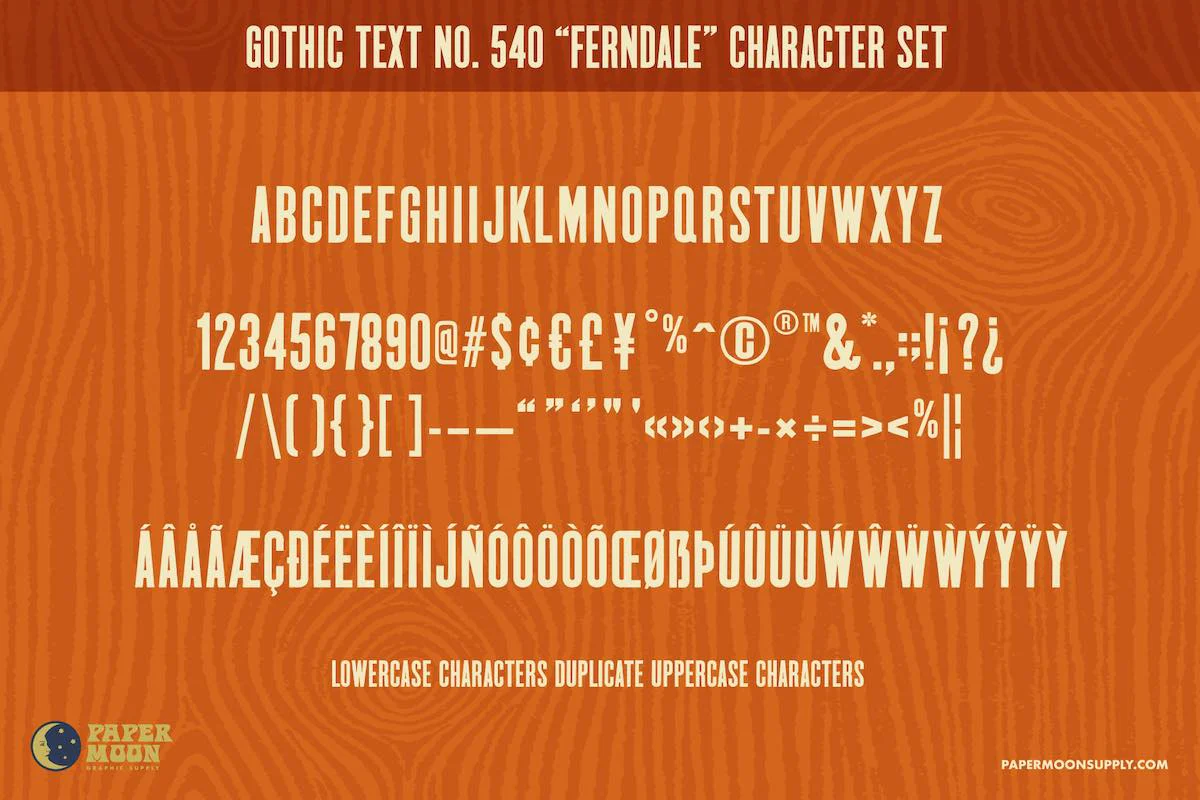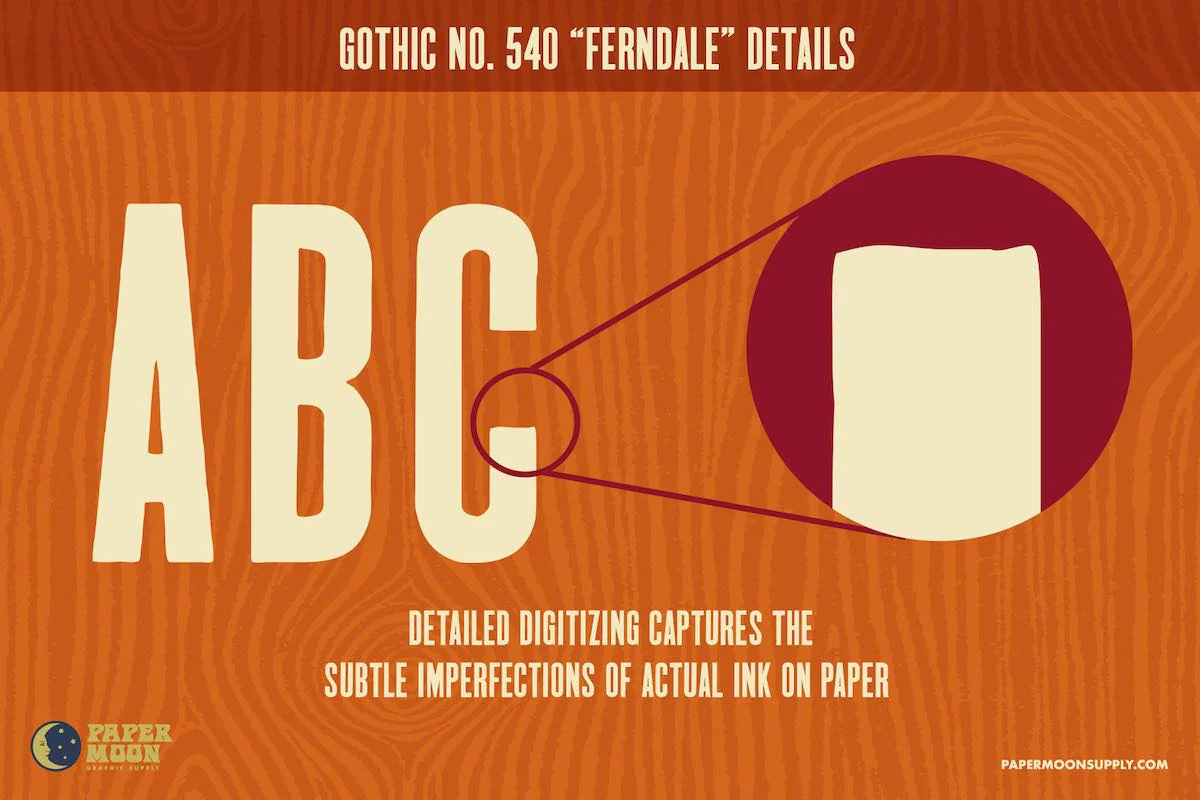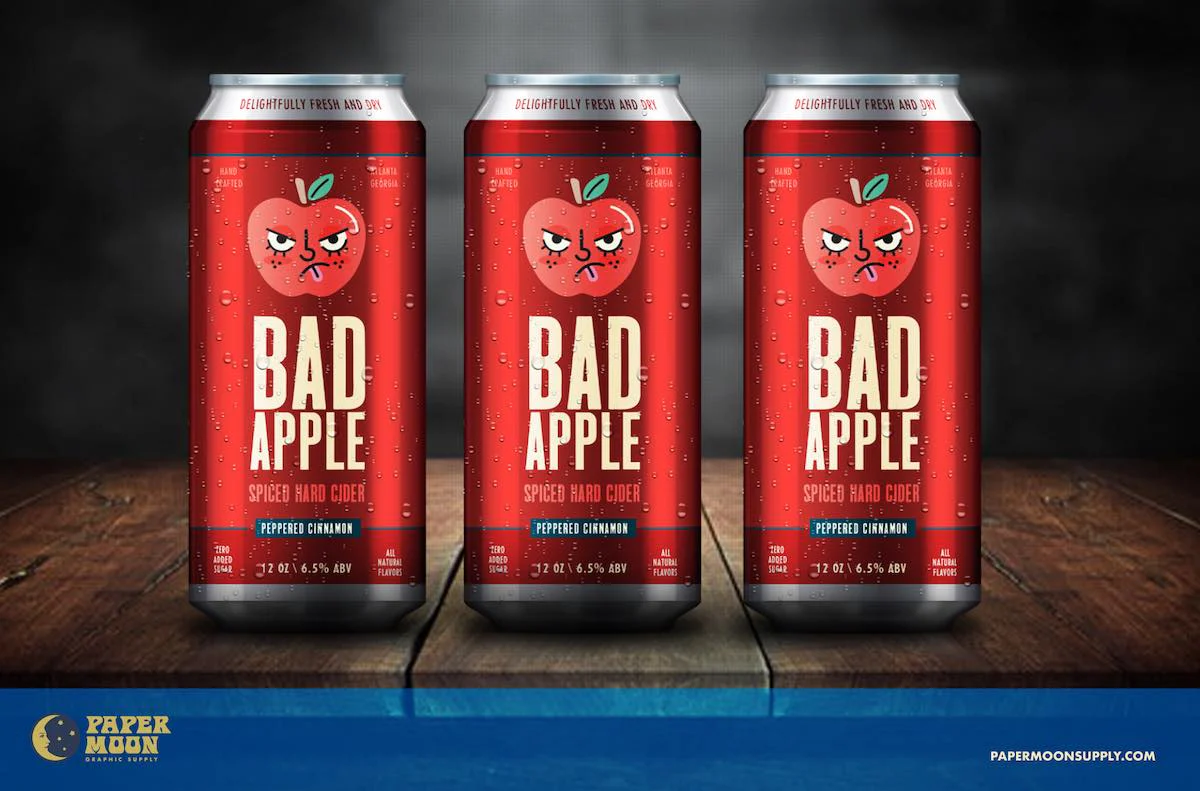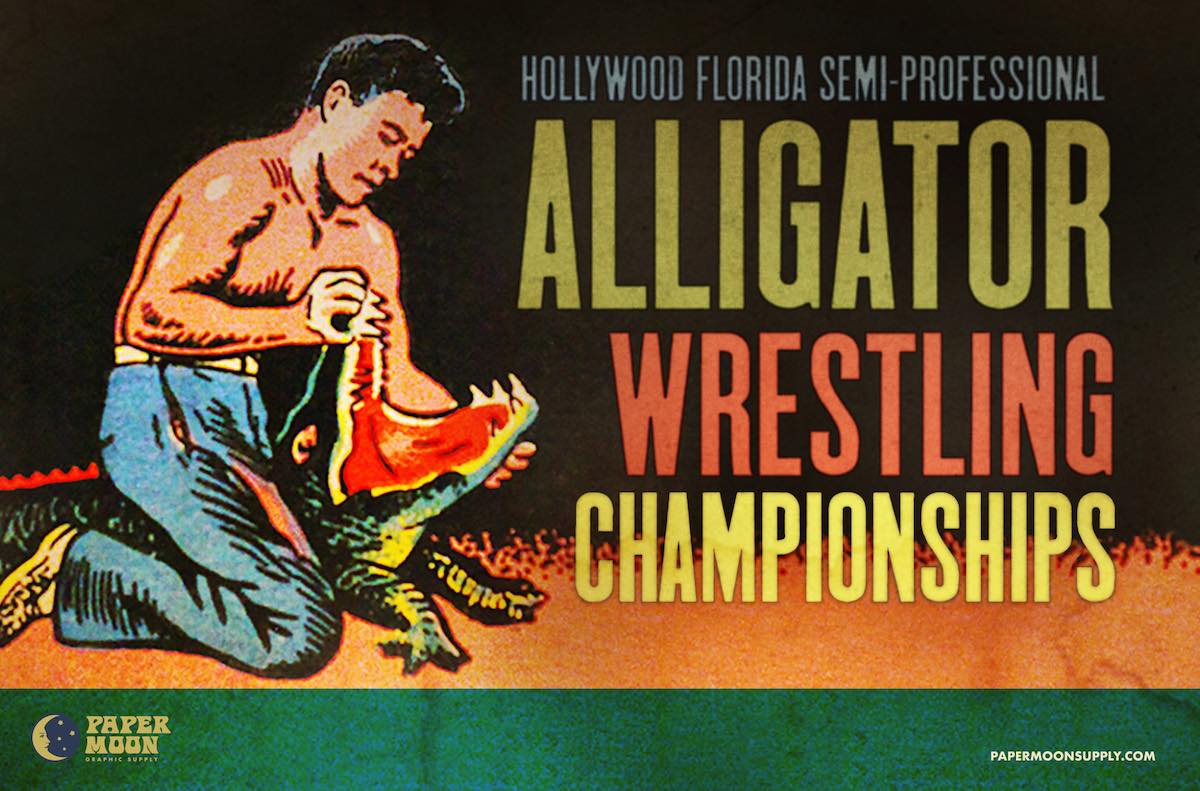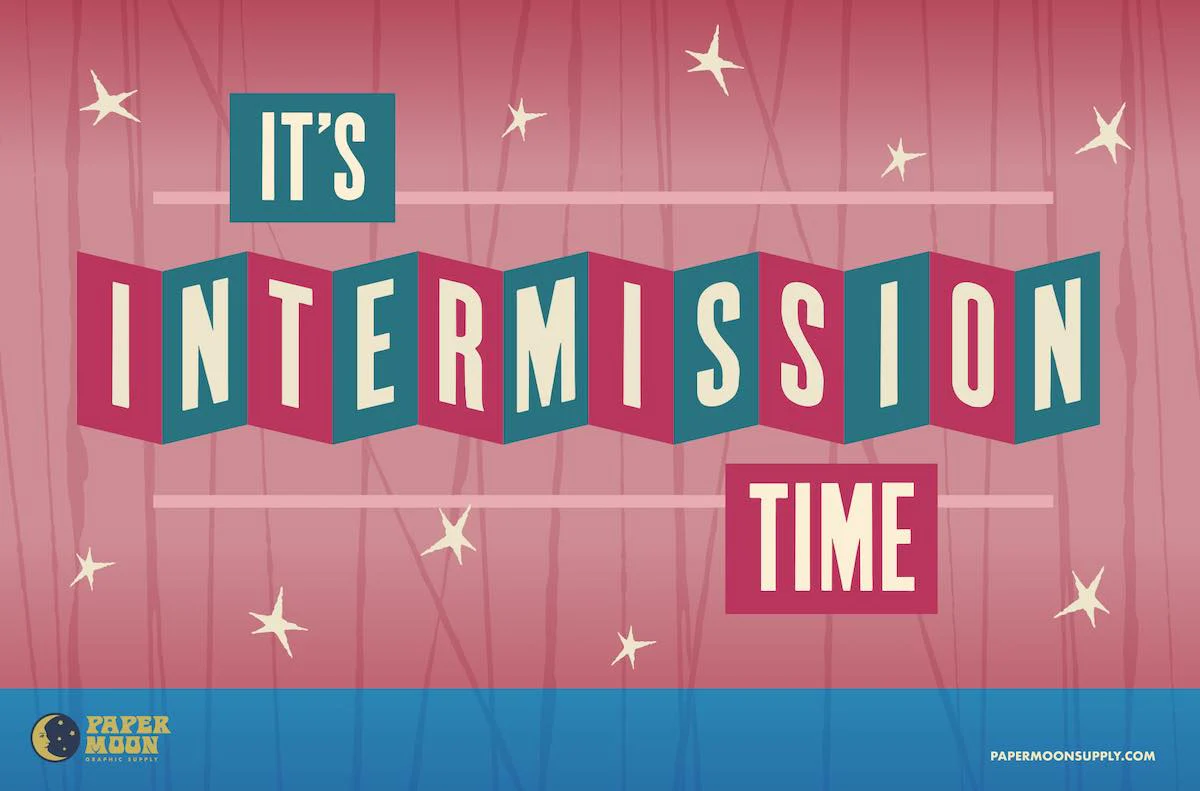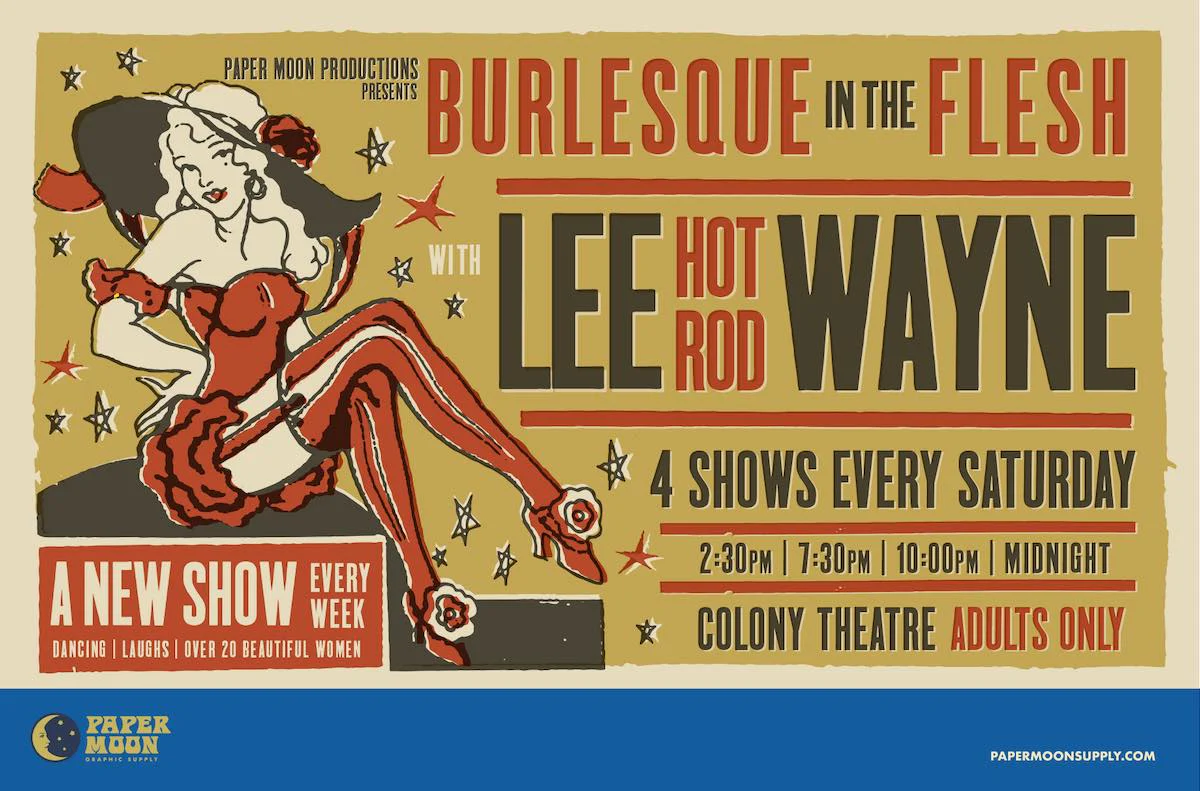
Introducing a Classic Wood Typeface Just Like Vintage Show Posters.
Ferndale Gothic Letterpress Font is a practical sans-serif typeface created from real woodblock prints.
Ferndale faithfully reproduces the subtle imperfections of real ink on paper. Use it in your packaging, branding, posters, website, and more for a touch of nostalgia and class just like vintage concert posters, broadsides, playbills, and show prints.
Ferndale is a highly-detailed letterpress font with natural "ink on paper" edges that maintains legibility even at small sizes.
Multi-Lingual Support
From accented characters to unique ligatures, Ferndale has you covered for a range of languages, ensuring your retro-inspired designs reach a global audience.